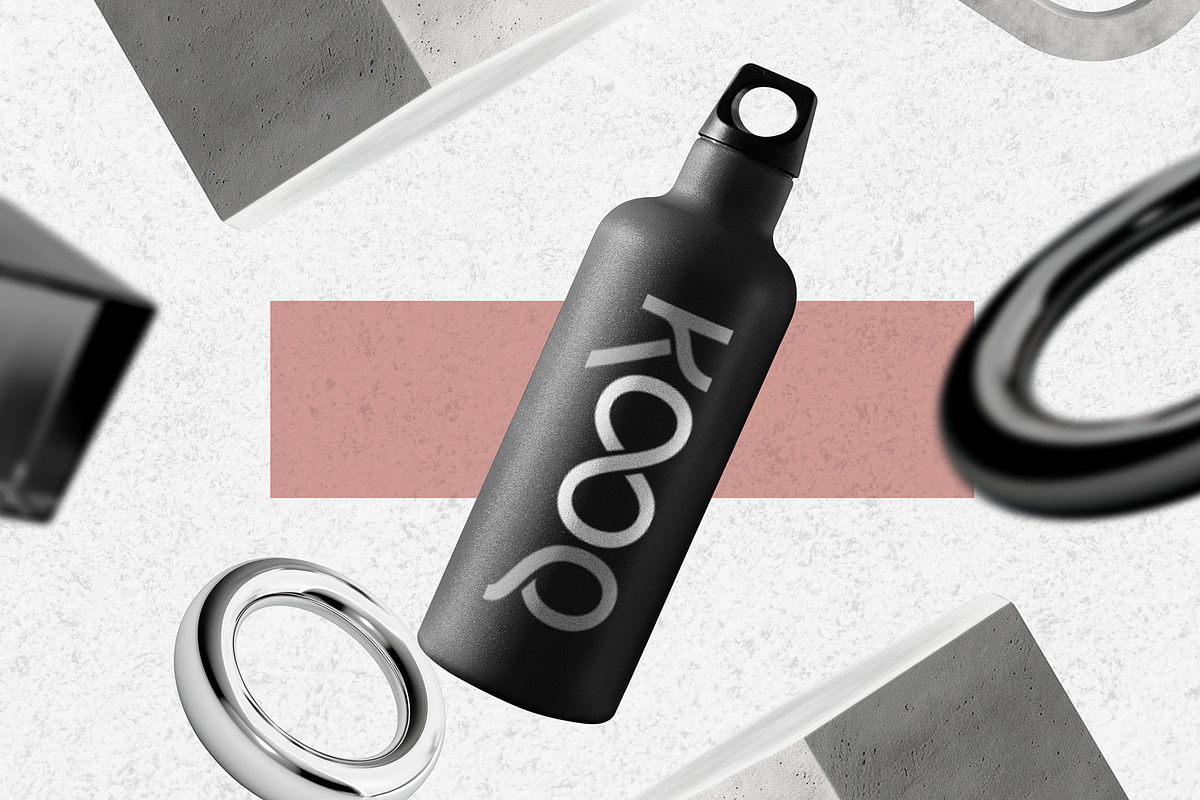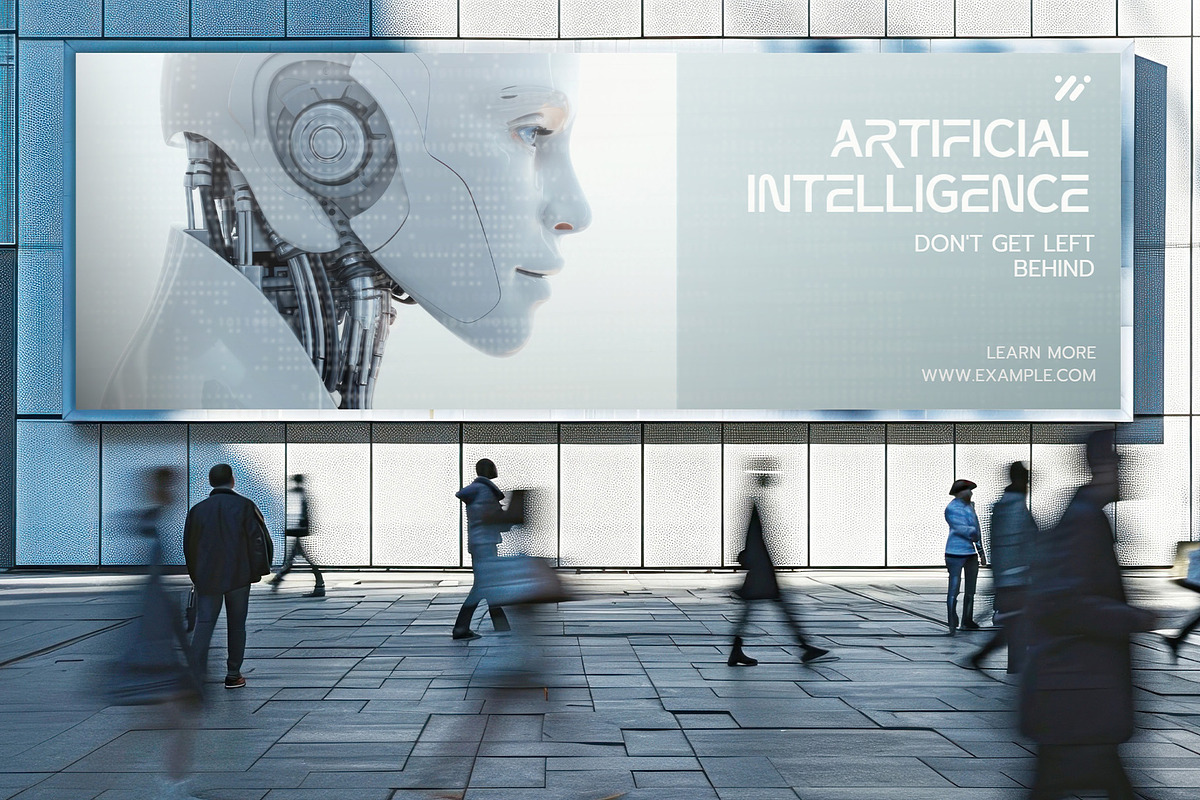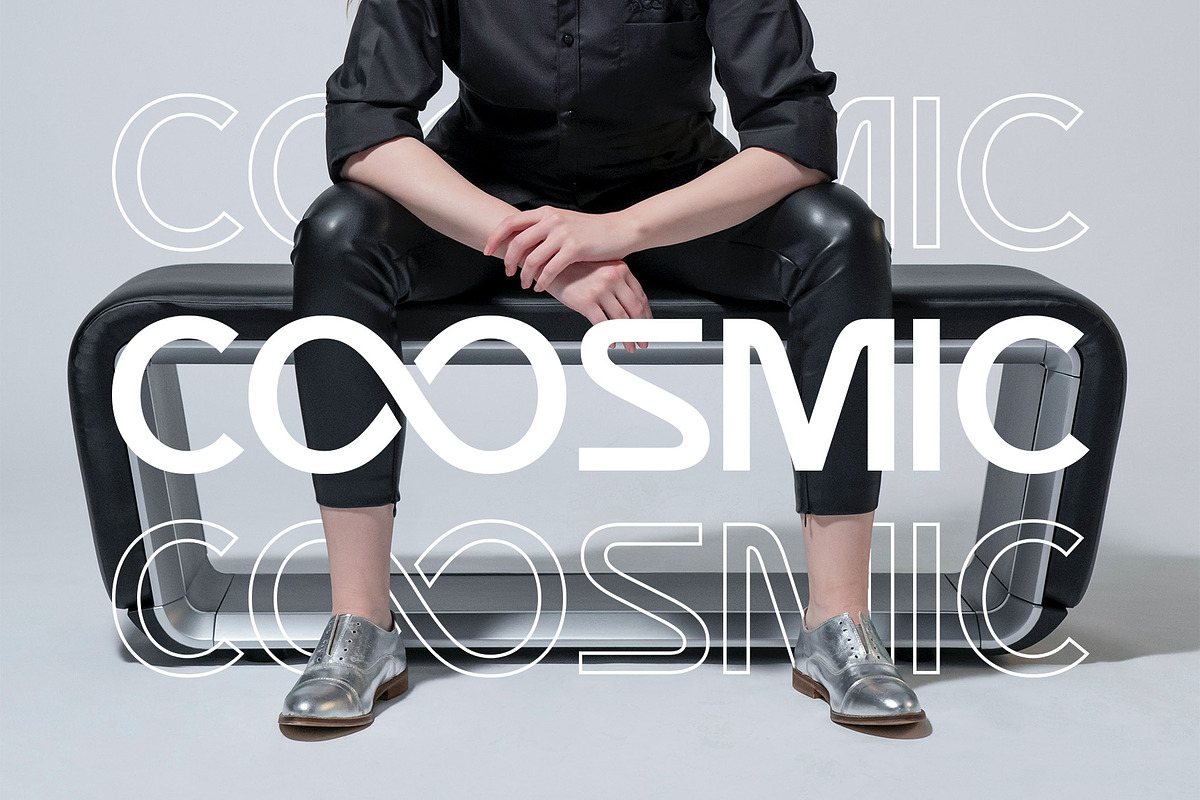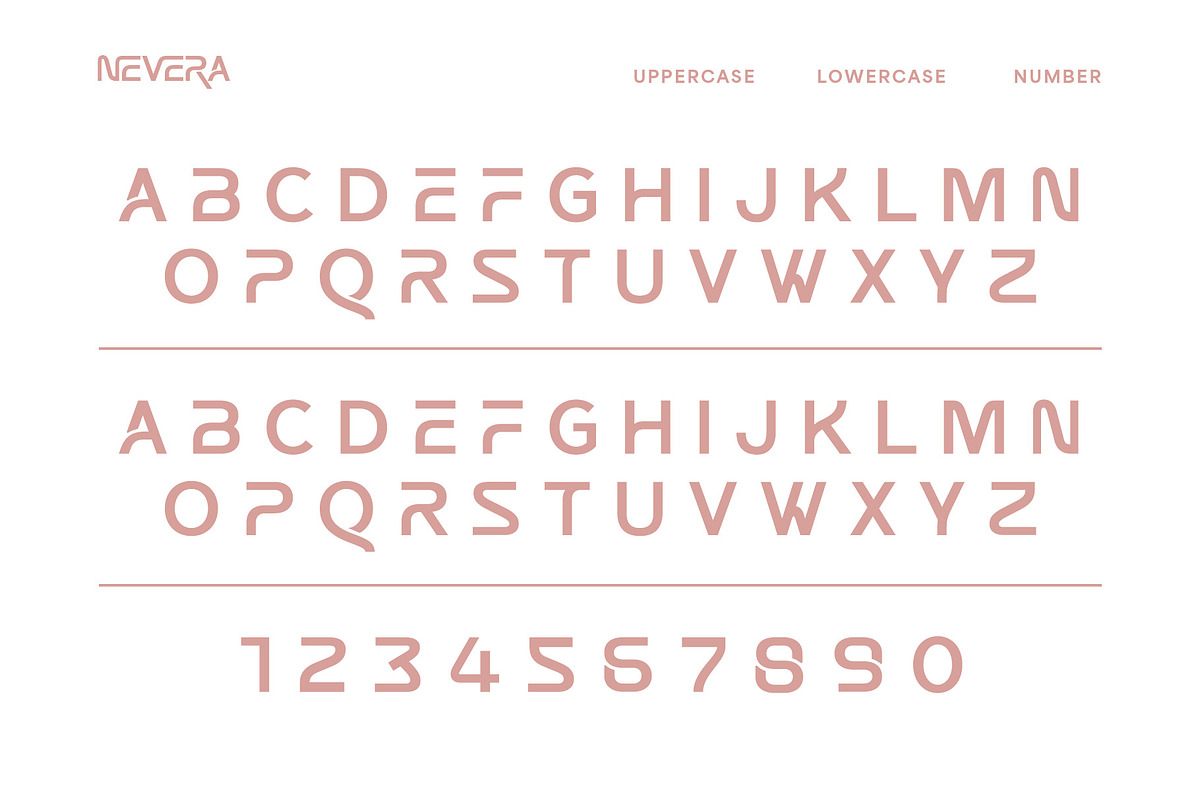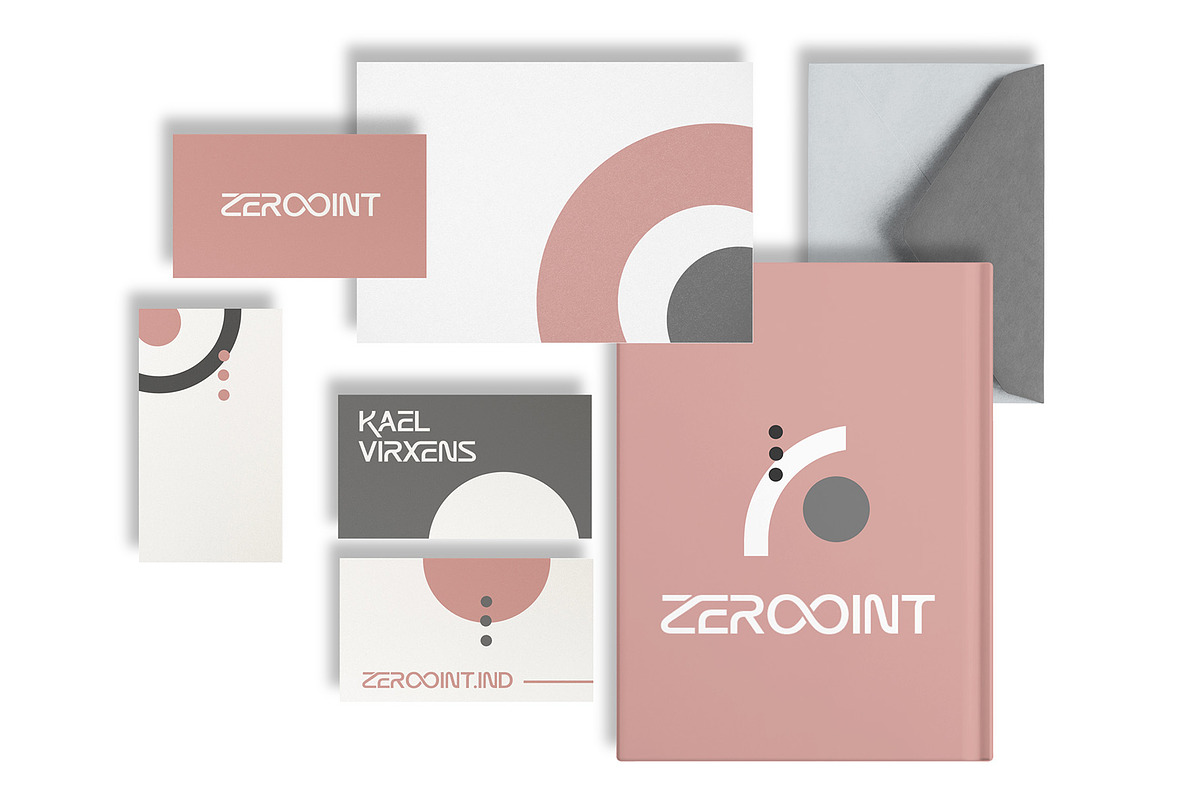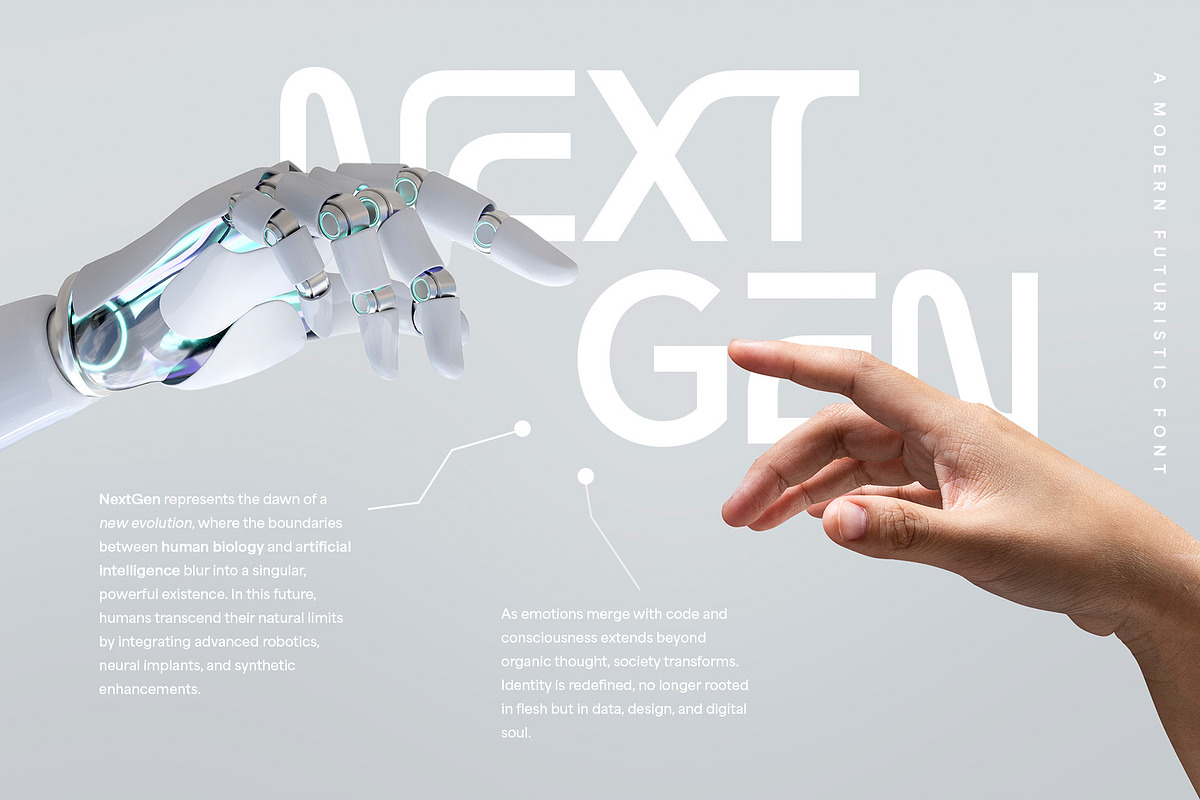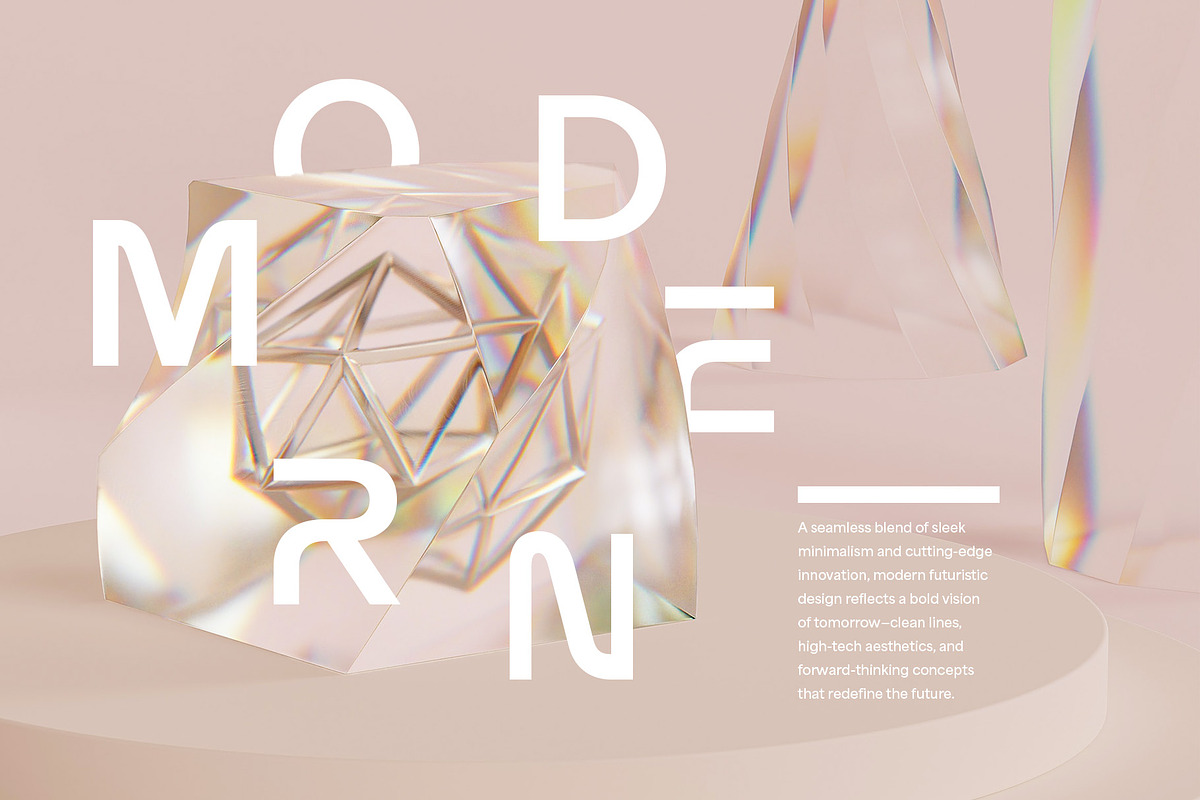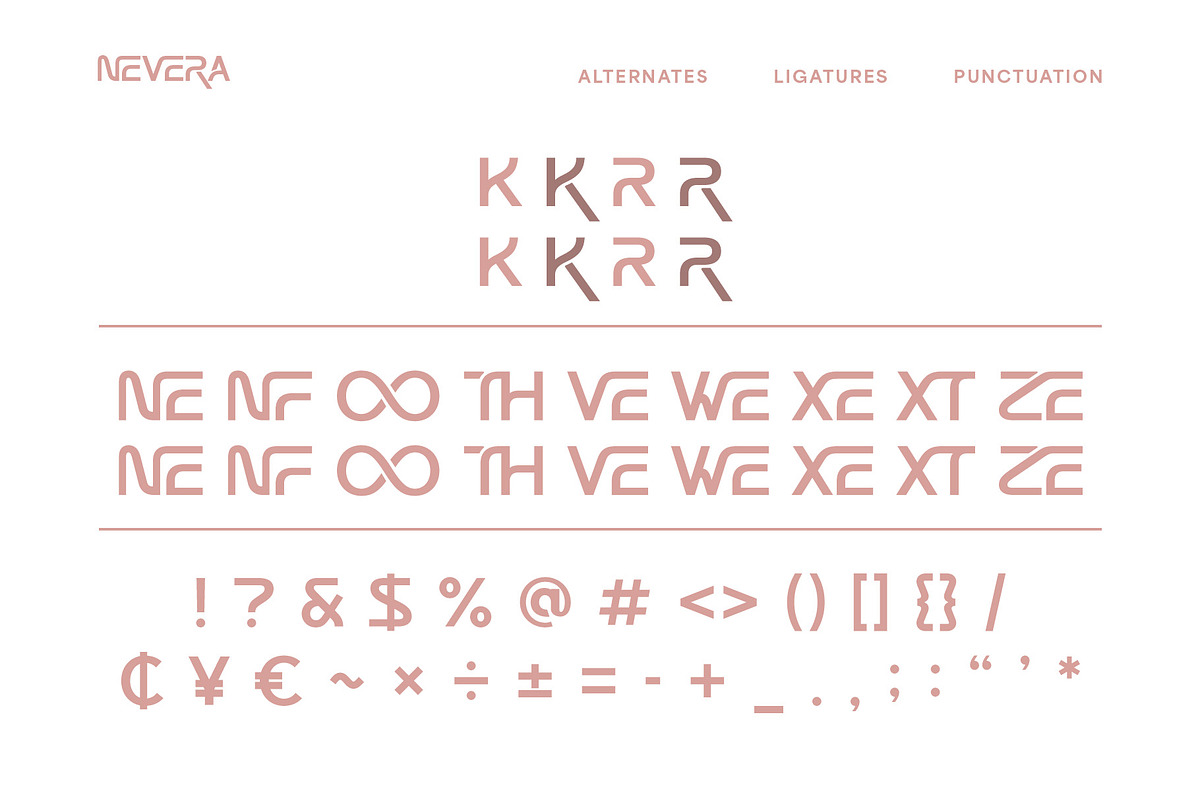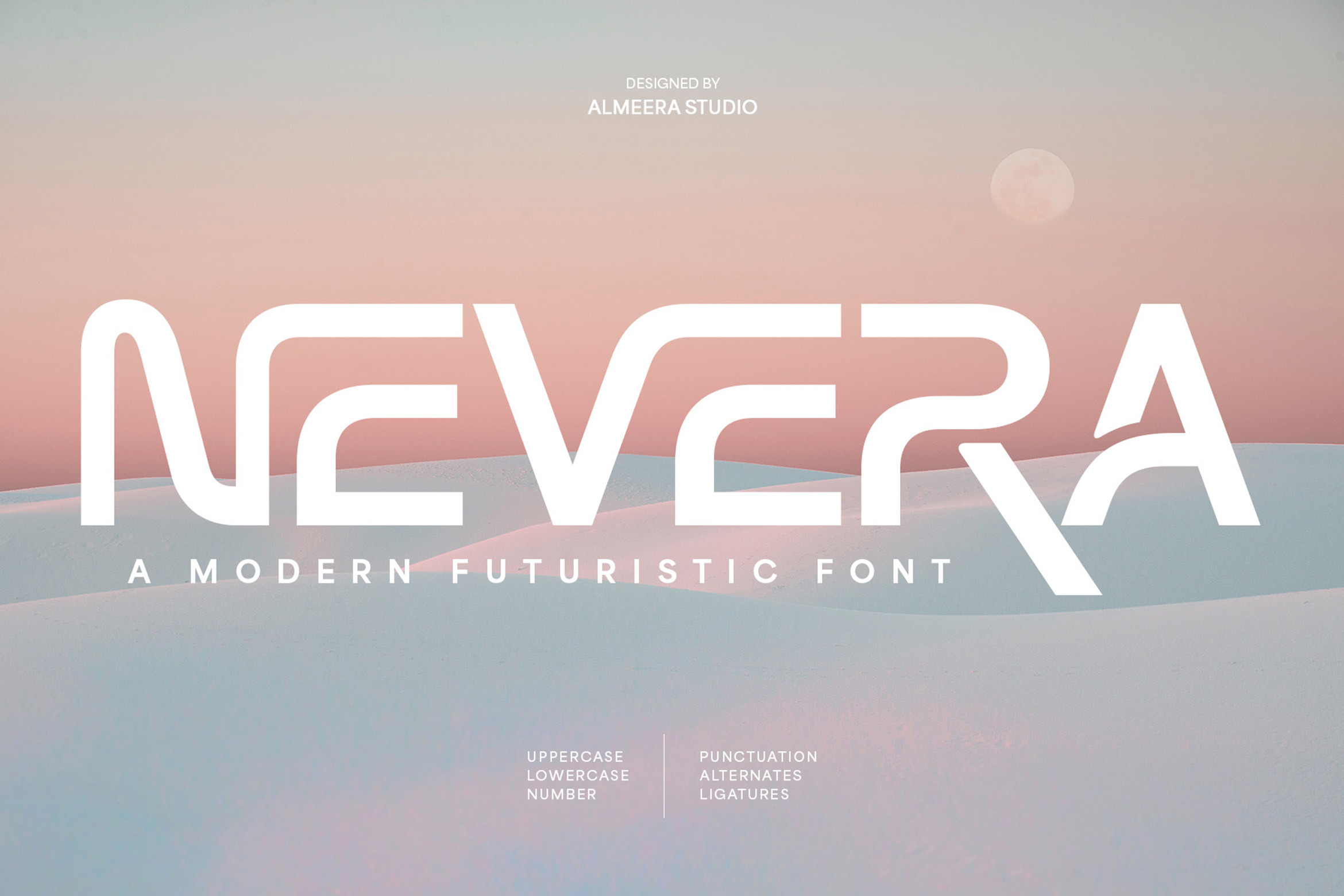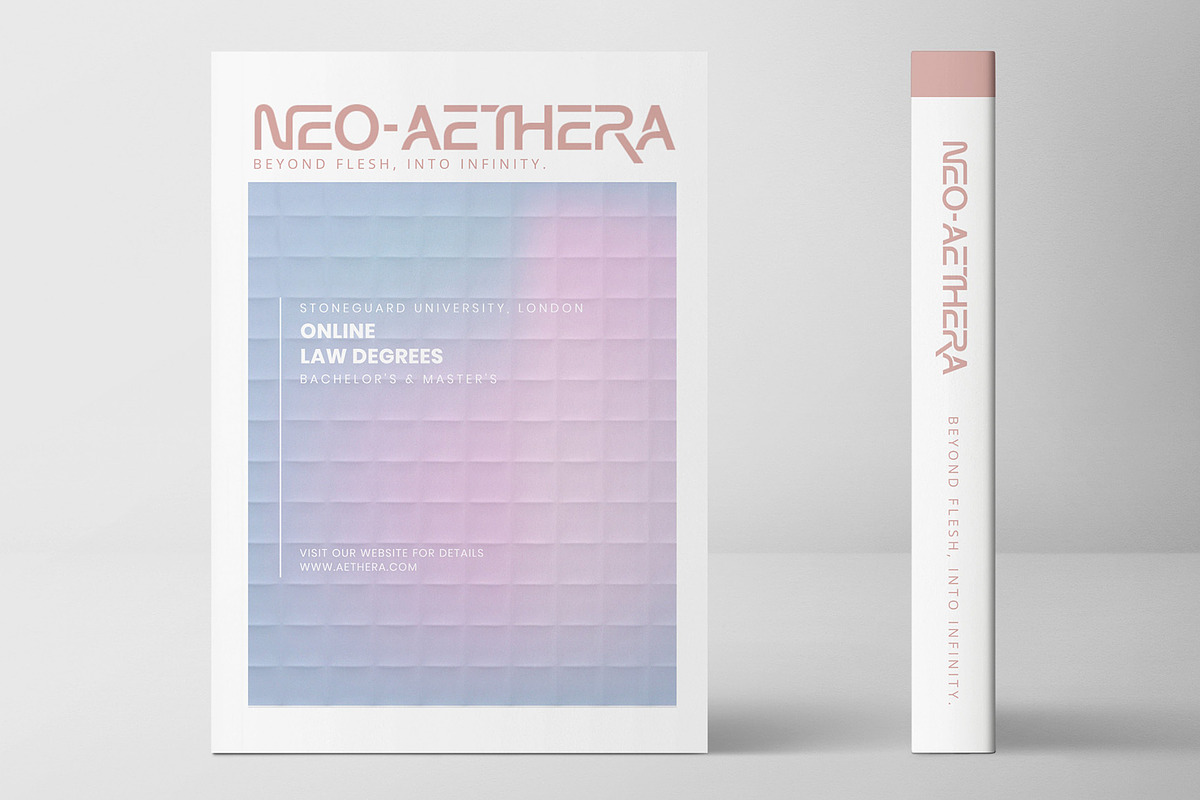
Nevera - A Modern Futuristic Font
Unleash the future with Nevera, a captivating modern futuristic font that blends sleek curves with sharp, innovative cuts. This elegant and modern typeface is perfect for tech startups, gaming environments, digital interfaces, automotive branding, science fiction media, and projects that demand a visionary and dynamic aesthetic. Nevera features unique letterform constructions, including uppercase, lowercase, numbers, punctuation, and stylistic alternates and ligatures, offering immense design flexibility. Its distinct rounded yet angular style ensures excellent readability and a compelling visual presence. Elevate your typography with Nevera, the ultimate font for designers seeking to convey progress, innovation, and a cutting-edge identity.